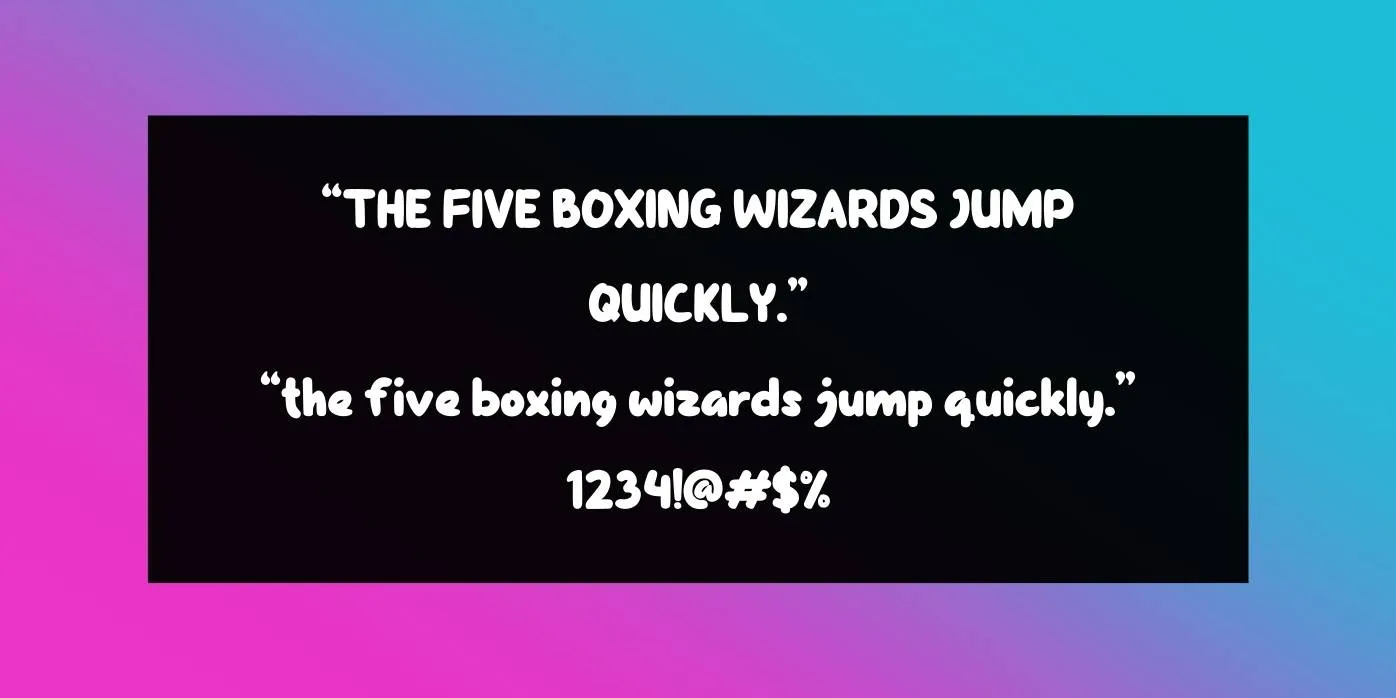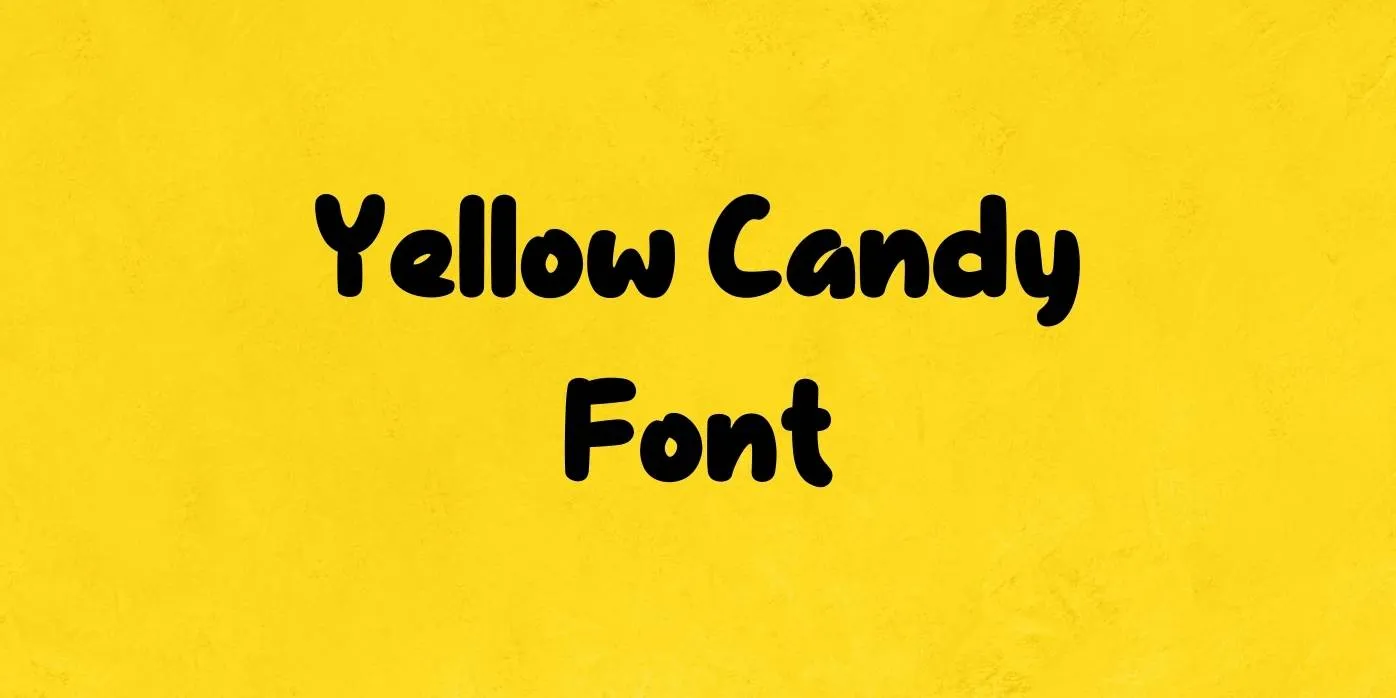
Yellow Candy Font
Yellow Candy Font is a fun and unique font that can be used for various purposes. It is perfect for invitations, cards, websites, logos, and more. This font is available in both TTF and OTF formats. The glyph of this font has a playful feel to it, making it perfect for any projects that need a touch of fun and whimsy.
This Font would be perfect for kids’ websites, party invitations, or any other project that could use a bit of sweetness. The Oswald font is a great sans-serif typeface and is best for pairing procedures with this typeface. This font was created by TypeSETit, an independent type foundry based in the United States. TypeSETit was founded in 2009 by type designer Richard Mitchell.
The company specializes in creating high-quality fonts with a vintage or retro feel.